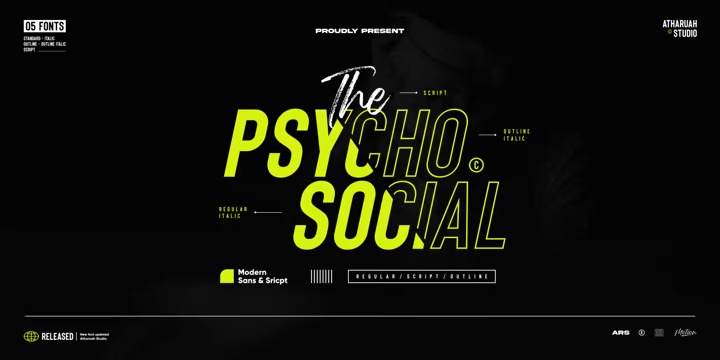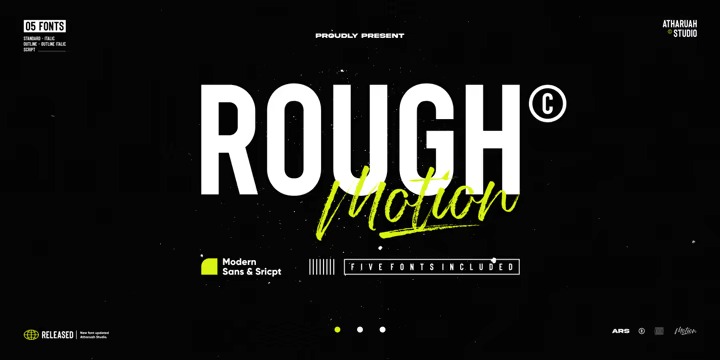
Rough Motion Font Duo
Rough Motion Font
This is an expressive font duo crafted & designed by Atharuah Studios. With medium brush stroke and combine with Sans serif display font. Make it a balanced composition in a sans serif font and a brush pen in a script font to show the realistic elements of the font. This is a font that is suitable for you to use in all your creative needs. Such as branding, logos, posters, web design, music artwork, etc.
Each font file includes uppercase, lowercase, numbers, punctuation, and multilingual support.
Rough Motion Script also includes a set of 10 swashes, ideal for underlining individual words and adding that extra ‘custom’ style. You can access it in every alternative letter A-J.